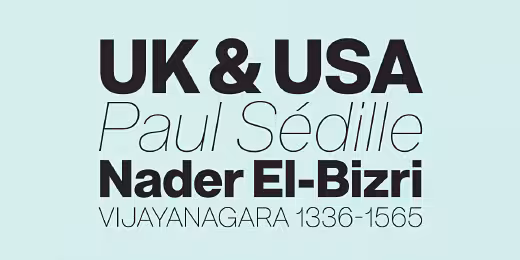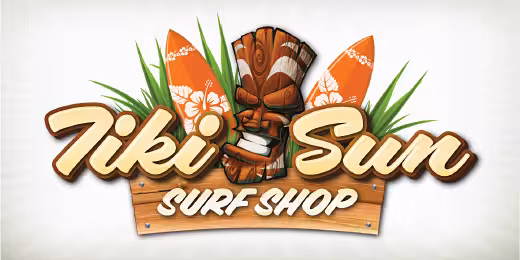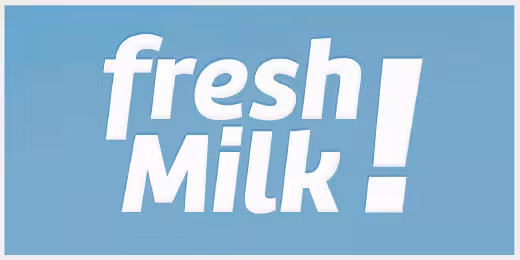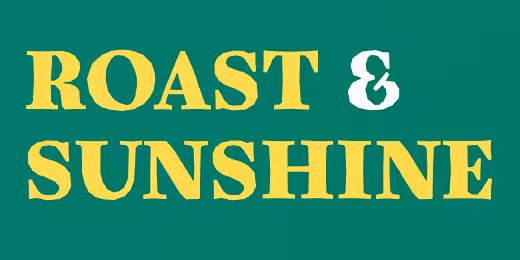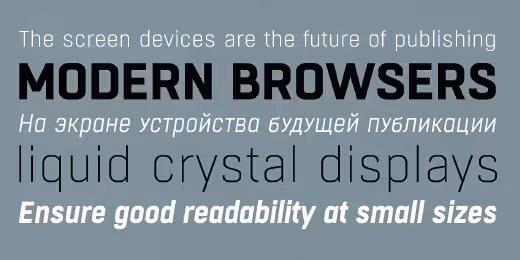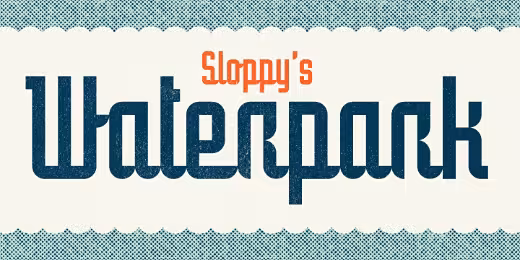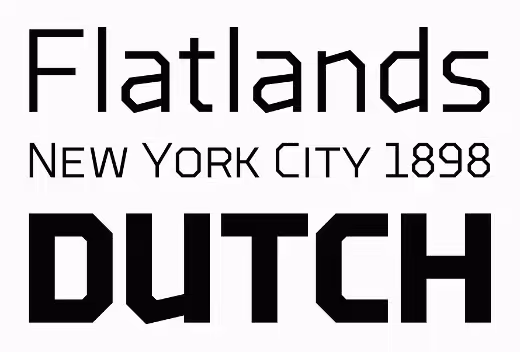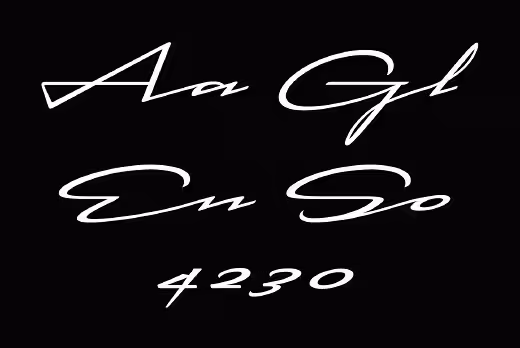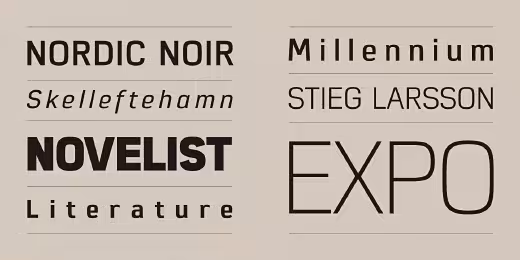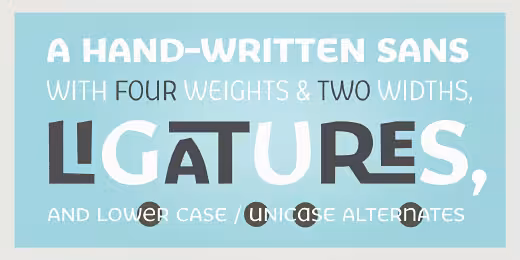
Anyone who’s tried their hand at designing a typeface will know it’s a wildly difficult process, and to actually come out at the end with something attractive takes an extreme amount of skill, taste and patience.
Type design isn’t for everyone, but typography is, and nearly every designer works with it every day. This is exactly why Type Release creator Sean Mitchell is here to share with you a list of 32 beautiful typefaces, all of which were released over the last month. These are his findings:
1. Reserves: Acronym
A highly refined neo-grotesque sans-serif based on Helvetica and its modern-day variants.
2. Hoefler & Frere—Jones: Landmark
The signature alphabet of one of New York’s most significant buildings becomes a family of clear and colorful display fonts.
3. Letters from Sweden: Kumla
Letters from Sweden’s first release in the “Fabrik Suite” — a project inspired by Swedish industry, factories and harbours.
4. Aesthetic Apparatus: Brass Rule Script
A geometric upright script constructed in the vein of the experimental “brass rule letters” from the 1952 German typography book Hoffmann’s Schriftatlas, combined with mid-century commercial chrome emblems.
5. Latinotype: Sanchez Slab
A new version, more robust, with straight edges that give it greater character and power.
6. TipoType: Amelia
A geometric sans, with the softness of humanistic strokes.
7. Constellation: Brooklyn
Started its life in an architectural model.
8. District: Hoban
Hoban is about contrast. Hoban wants to be noticed, but only after a second glance.
9. Typotheque: Supernova
A family that combines the spontaneity of a script typeface with the versatility of multiple weights and cuts.
10. Klim: Founders Grotesk Text
Maintains the same lineage and feel as the rest of the Founders Grotesk family, but works best at text sizes.
11. Letters from Sweden: Trim Poster
A new member in the Trim family and is designed with one purpose in mind: compact all-capital headlines without crashing.
12. The Northern Block: Eund
A geometric sans serif with minimal contrast. Shallow curves are smoothed out of rectangular letterforms to produce a fresh, legible typeface best suited to information based applications.
13. Hanoded: Inky Fingers
This rather obese font was made by hand — literally.
14. Nootype: Selfico
A modern font family, that has a strong verticality intensified with the vertical “y” and a special È.
15. Lennart Breel: Obscurity Sans
An uppercase display typeface inspired by shadow.
16. Associated Typographics: Skol
On or off the screen, Skol is a tenacious, hardy font that would make its ancestors proud.
17. CBdO Fonts: Aloha
Fun to use brush fonts, Aloha is bound to please.
18. Device: Cadogan
A freeform linking script that uses OpenType programming to replace beginning and ending characters with uniquely designed variants.
19. Sudtipos: Piel Script
A “tattoo” script, Piel is Spanish for skin.
20. Hoftype: Foro Rounded
The softer sister of the succesful Foro family. Distinct in appearance, with pleasant haptic, objective, and with graphic appeal.
21. Stereotypes: Prism
Mainly inspired by two things, the sketches of Rudolf Koch for Prisma and the proportions of Avant Garde by Herb Lubalin.
22. Tipo Pèpel: Boxed
A new and extensive 18-weight typeface, brightly conceived and designed to look good on small screen devices, but offering also enlightened looks on paper.
23. Tipografies: Trola
Its unusual proportions makes it particularly recommended for generous sizes to fit in tight spaces.
24. District: Fair Sans
A distinctive sans serif with much of its calligraphic structure left intact.
25. Jure Kožuh: Stat Display Pro
A sans serif type family legible in circumstances of low visibility.
26. Laura Worthington: Number Five
Pure Americana, suitable for titling, display, logo, signage, and editorial work.
27. Fonted House: Matchmaker
Tall, quirky, and juxtaposed letterforms provide a deviation from traditional calligraphy-inspired typefaces.
28. ParaType: Vaccine
A slab serif font family, soft rounded shapes, distinct and strong.
29. PintassilgoPrints: Sheldon
Draws inspiration from the beautiful and eloquent posters by the polish graphic artist Marian Stachurski.
30. Trine Rask: Bornholm Allinge
The third face in a series of rough stone cut typefaces, that shares proportions, but differs in any other aspect like different pieces of rock.
31. FSD: Sys Falso
The calligraphic version of the font family Sys.
32. Canada Type: Vox Round
An extensive monoline typeface that can be both precise and friendly.